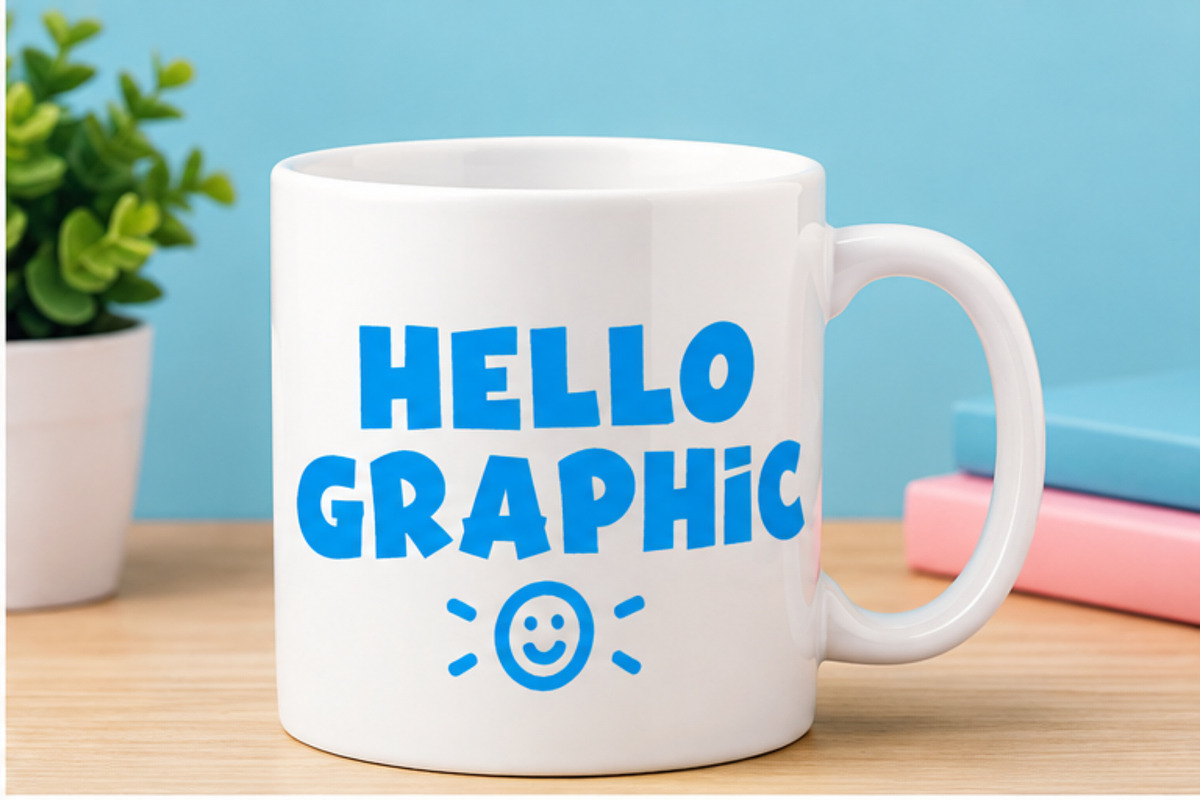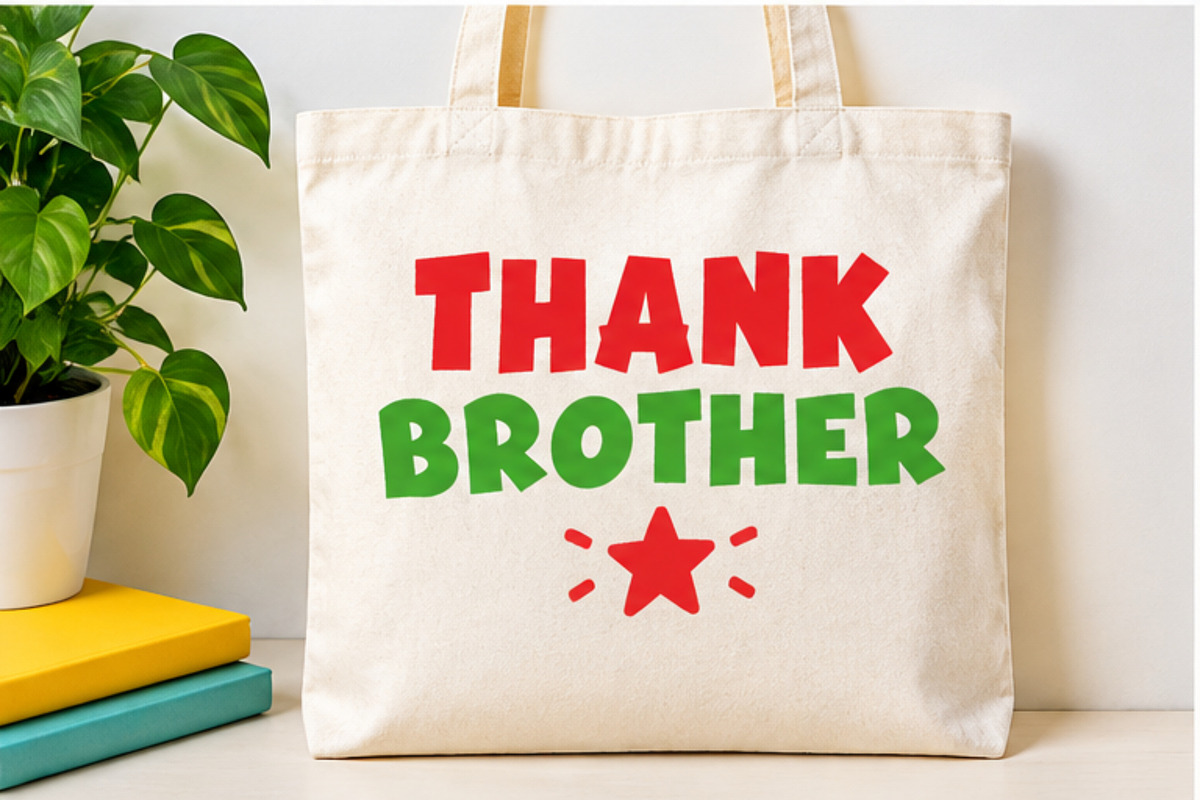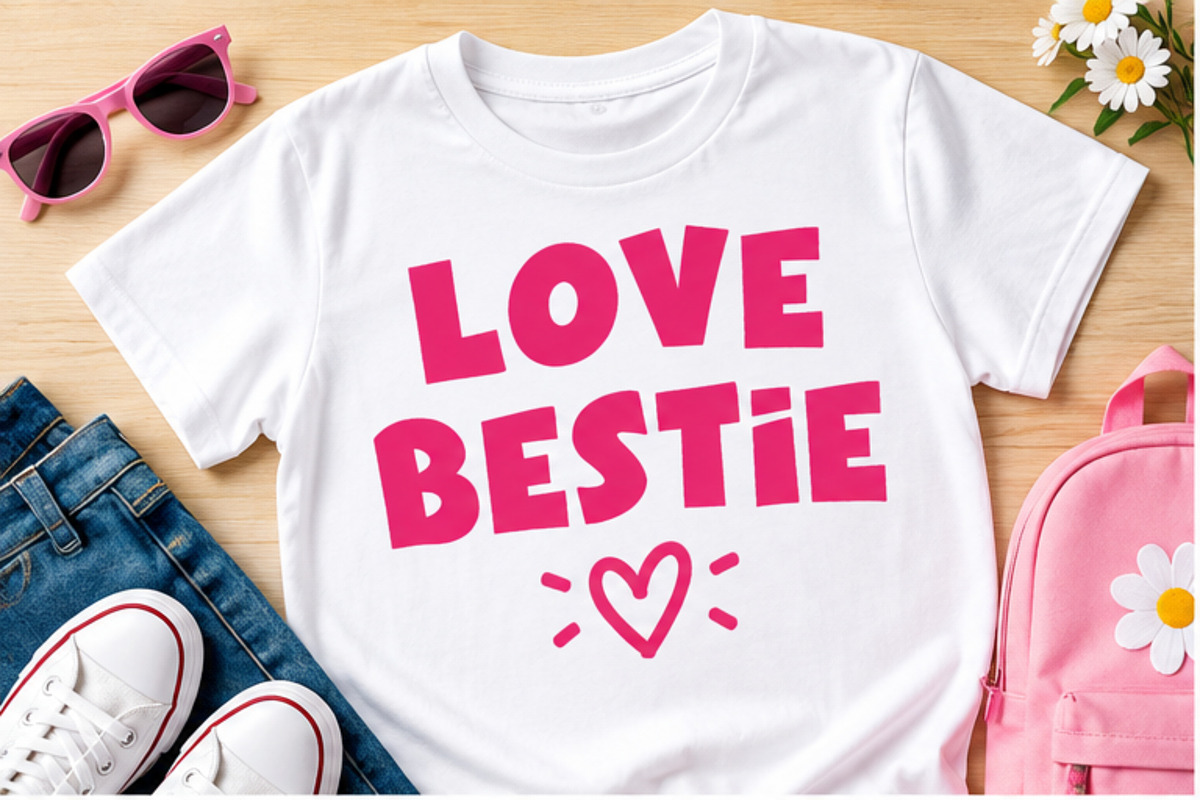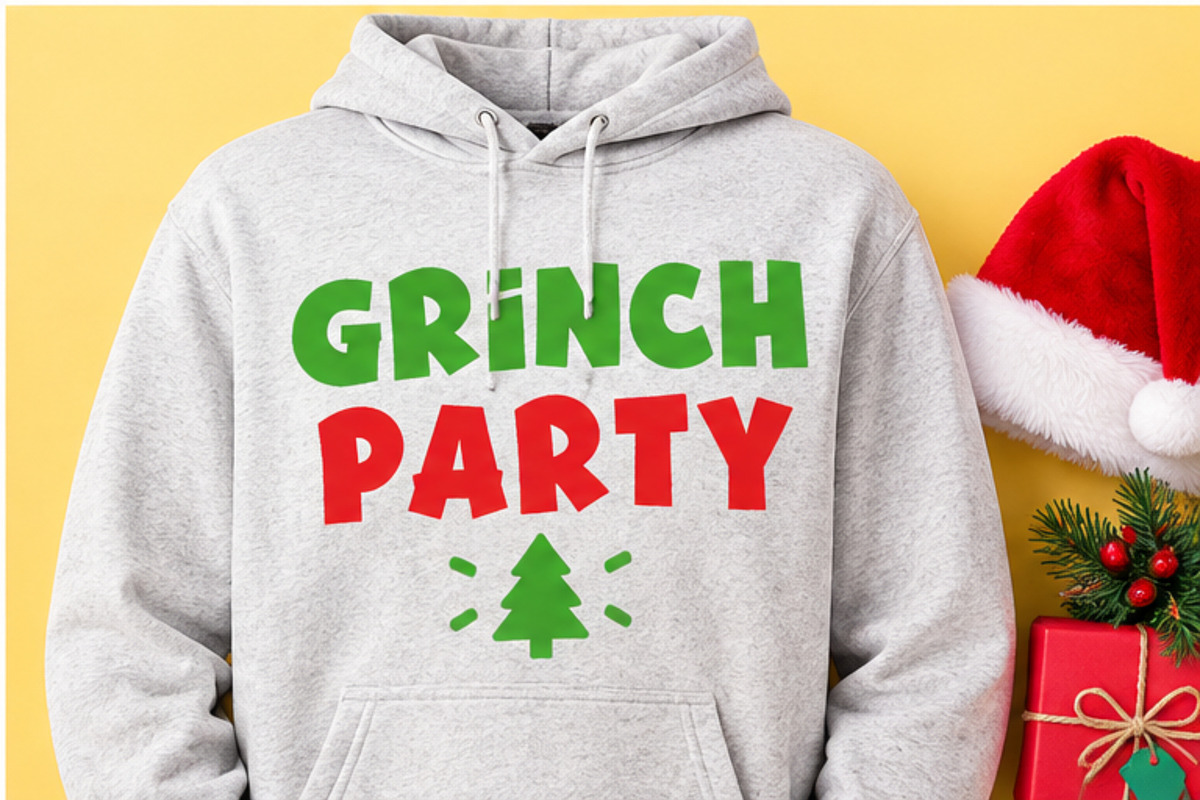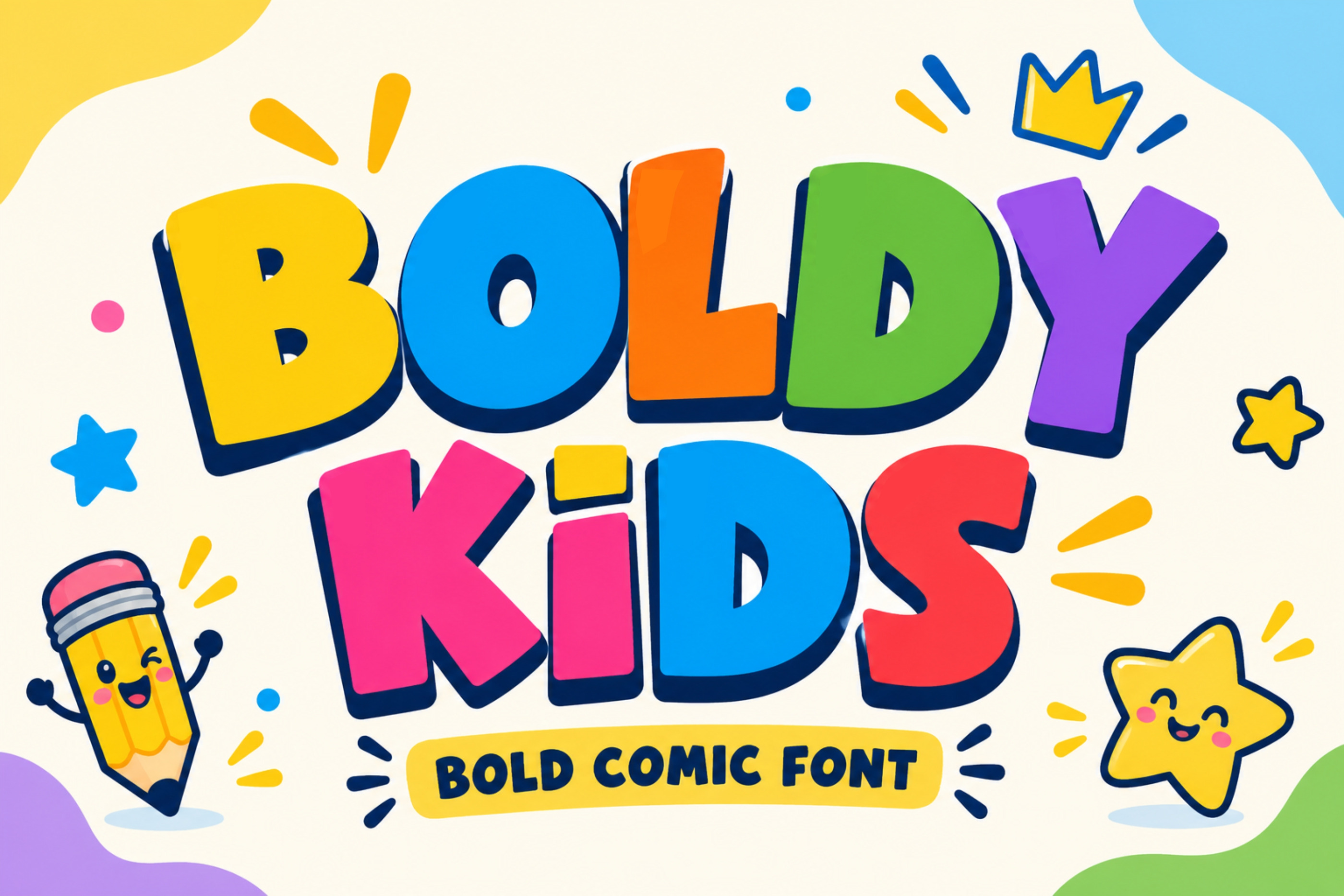
Boldy Kids - Playful Font
Meet Boldy Kids, a fun and playful bold display font created to make your designs stand out! Its chunky and friendly letterforms give projects a cheerful, youthful, and eye-catching appearance.
Perfect for children’s designs, classroom materials, birthday invitations, party decorations, T-shirts, stickers, posters, greeting cards, nursery projects, Cricut crafts, Silhouette projects, and digital artwork.
Boldy Kids works beautifully for both personal and commercial creative projects and is a great choice whenever you want a fun, friendly, and energetic typography style.